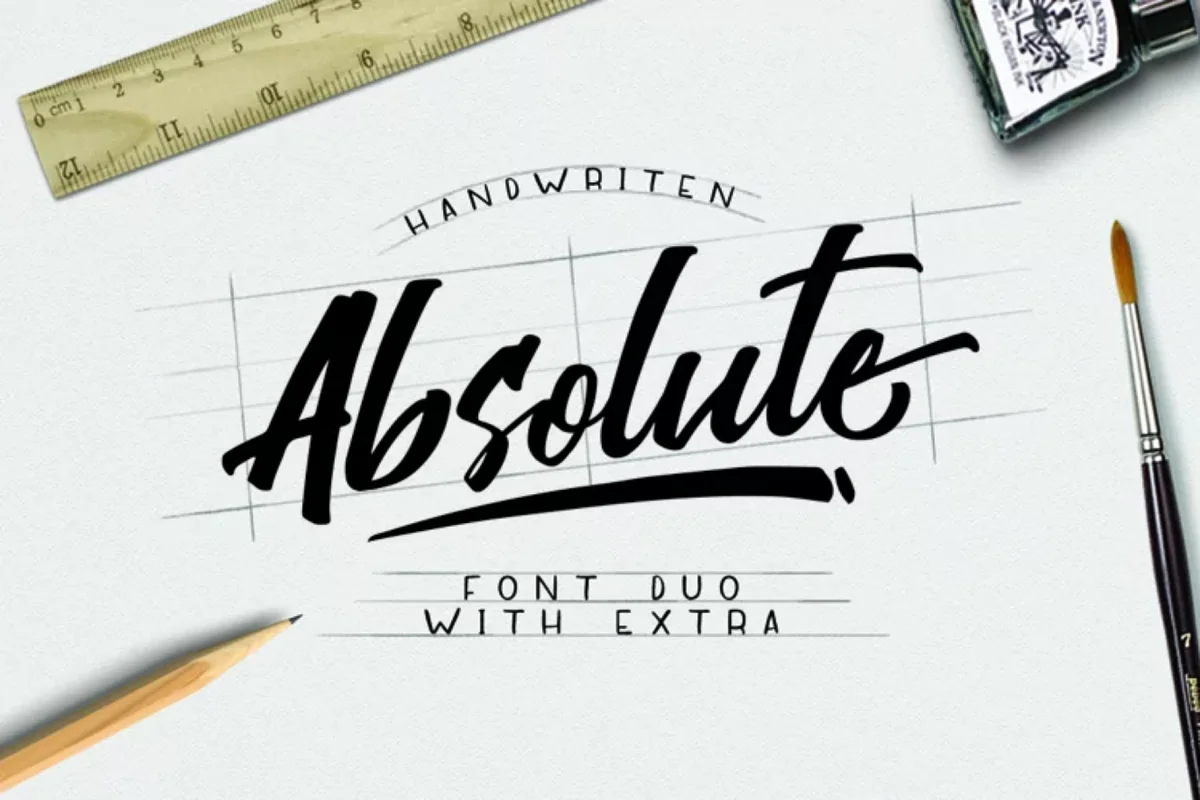
Please note that you must purchase this font for commercial use. You can download Absolute Duo Extra Font for free, strictly for personal testing purposes only. Absolute Duo Extra is a bold and expressive display font designed to make a dramatic impact. With sharp, dynamic strokes and a strong visual rhythm, Absolute Duo Extra Font Free Download is perfect for action-packed posters, esports logos, gaming titles, streetwear branding, music album covers, and high-energy social media graphics.
Its edgy, futuristic look gives your typography an aggressive and modern vibe, making it ideal for projects that demand boldness and attitude. The font includes uppercase letters, numerals, punctuation, and multilingual support for global usability.
Whether you're crafting a powerful visual identity or designing for the entertainment and gaming industries, Absolute Duo Extra delivers high-octane style.